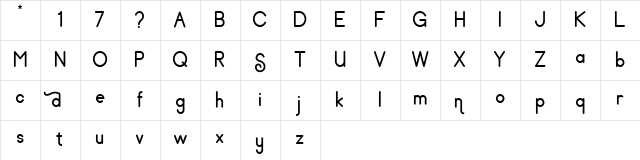
Sundylle Regular Regular
| Designer | Patria Ari Wijonarko |
Design Context for Sundylle Regular Typeface
Sundylle Regular is a composed and adaptable typeface that performs quietly and consistently across a wide range of design contexts.